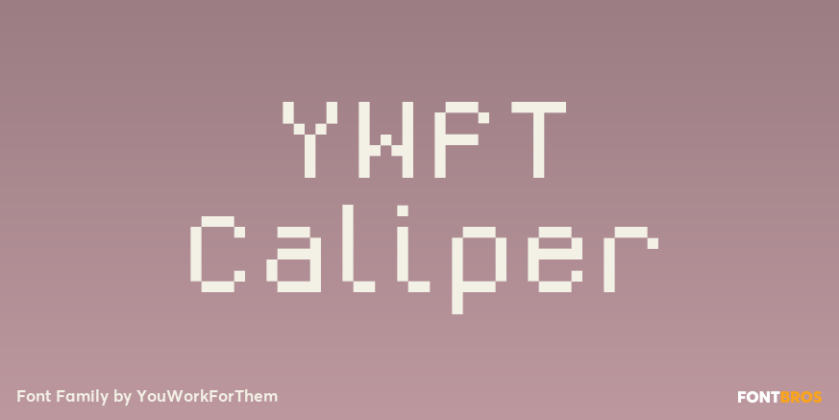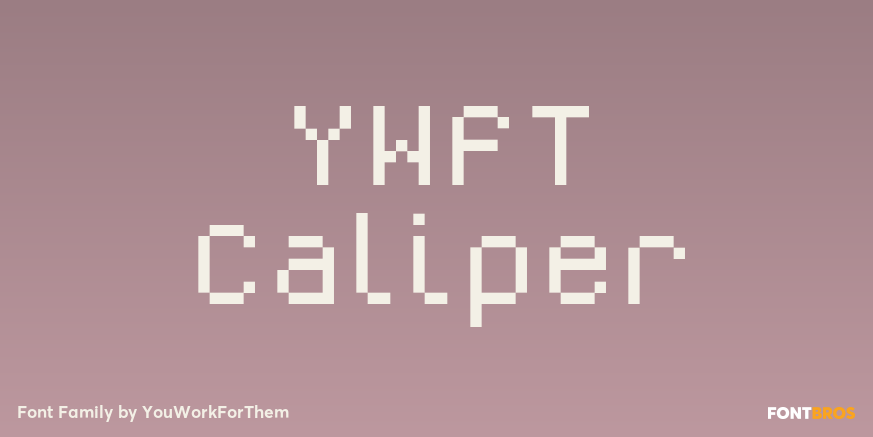
YWFT Caliper
About YWFT Caliper
YWFT Caliper was originally created as a unique-yet-readable bitmap typeface. While it works well onscreen at small point sizes, it also can be used at larger sizes for retro-style headers and attention-grabbing statements. YWFT Caliper also contains…